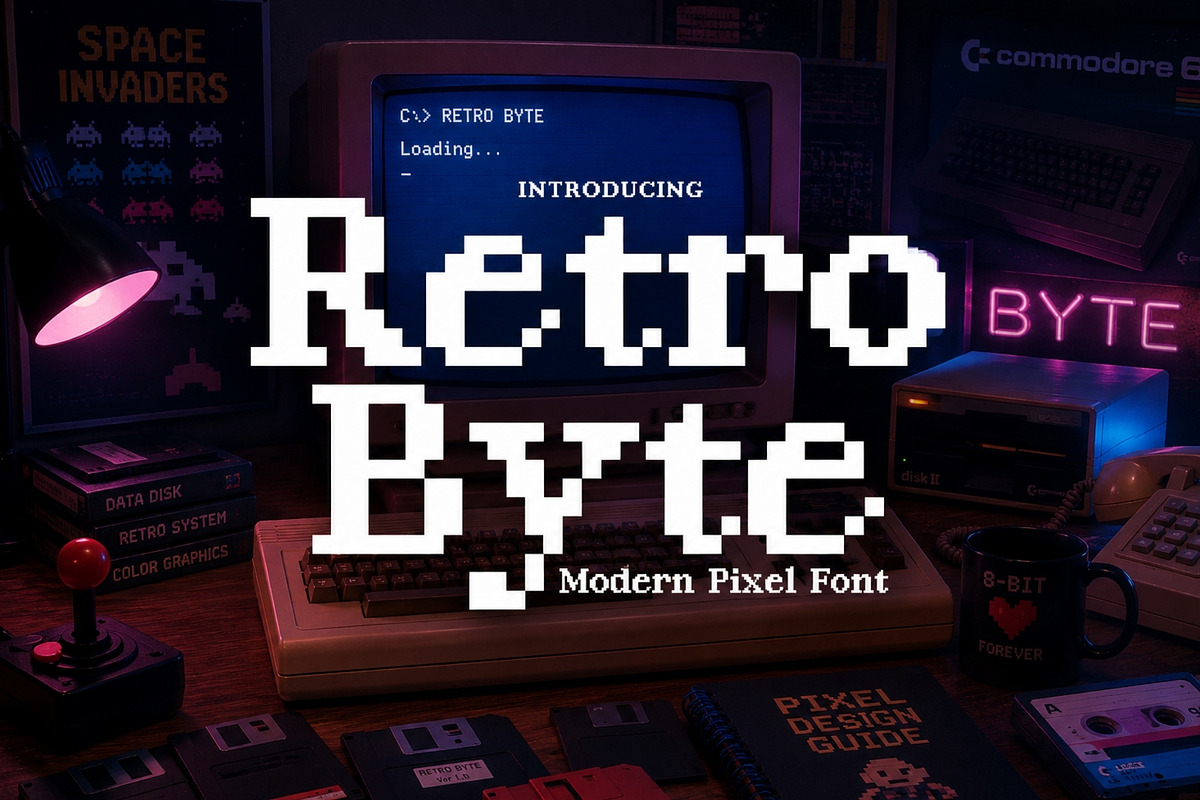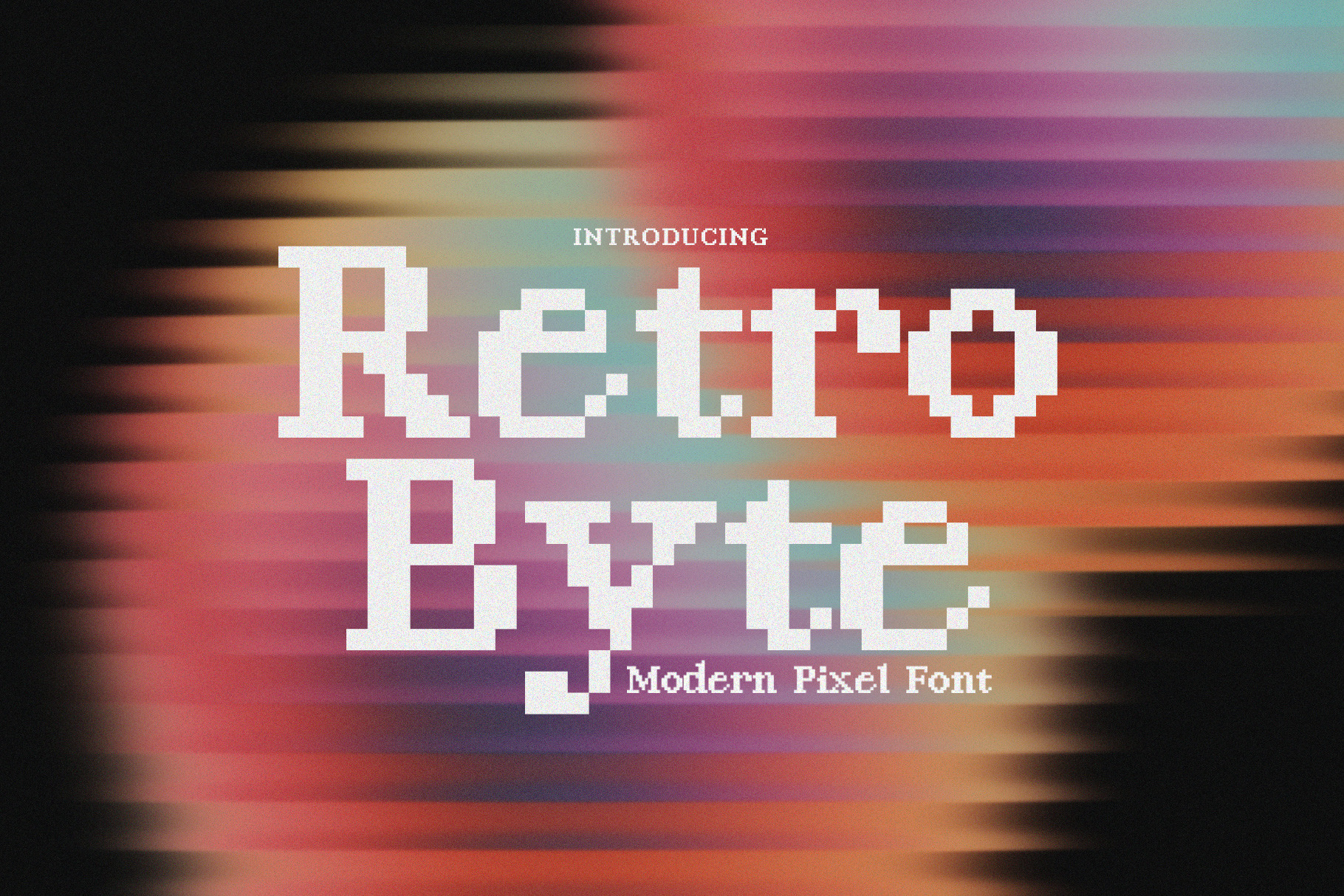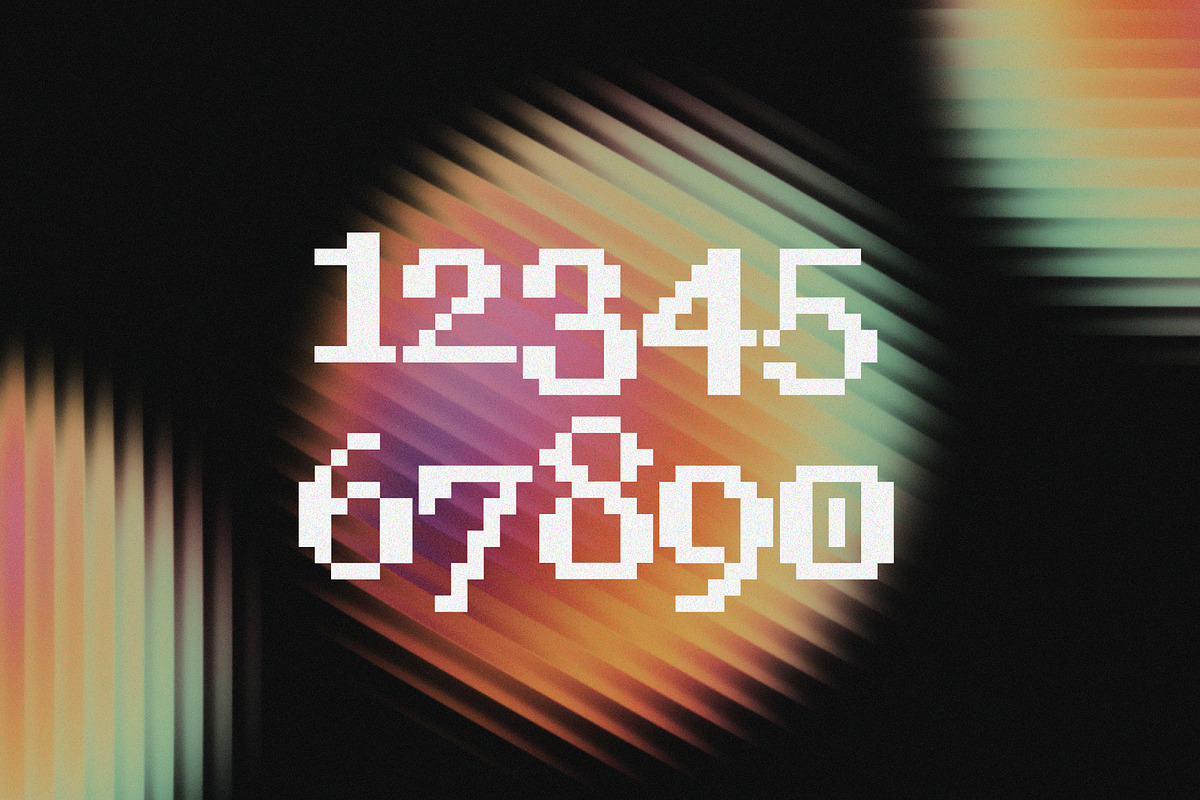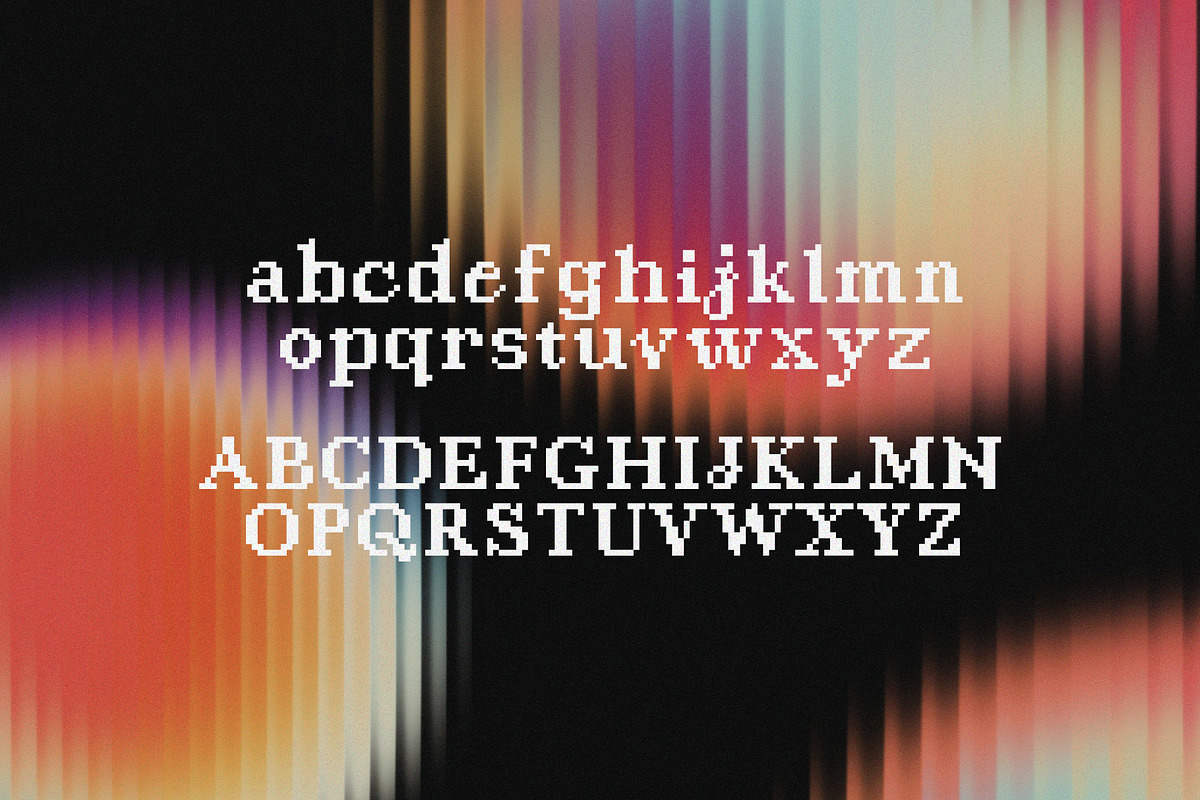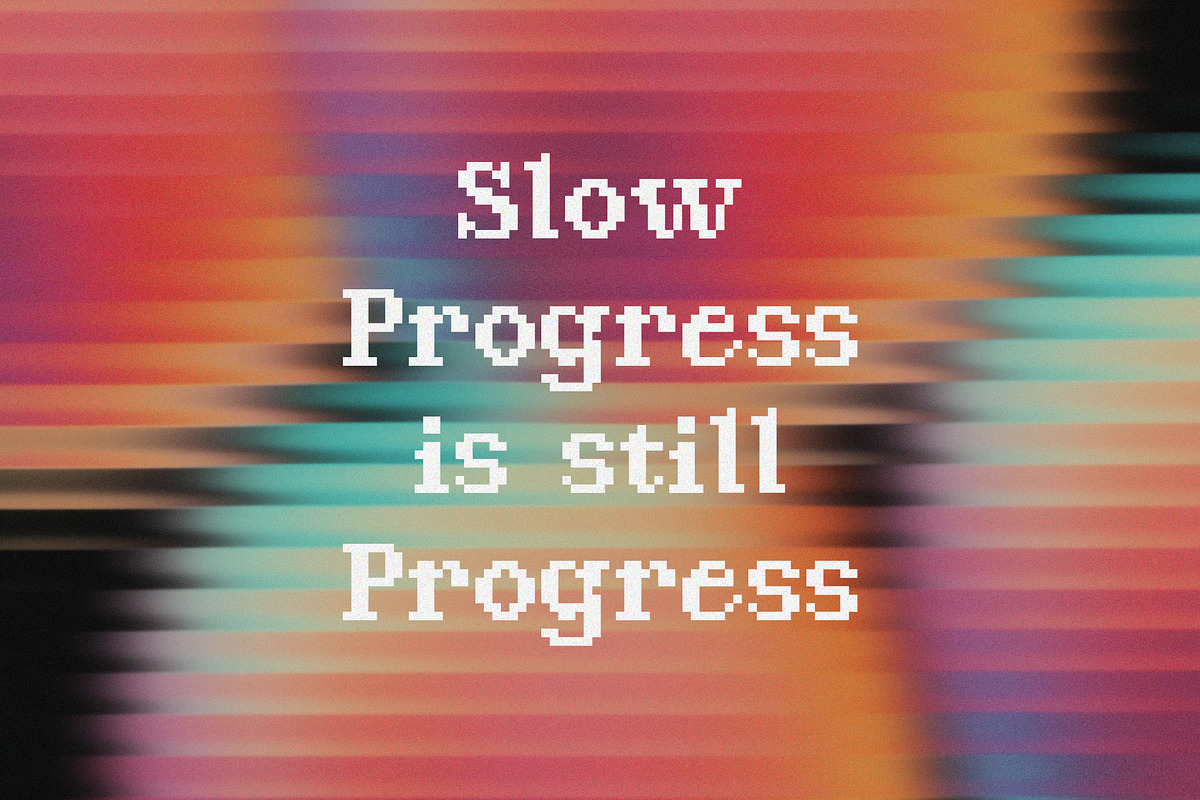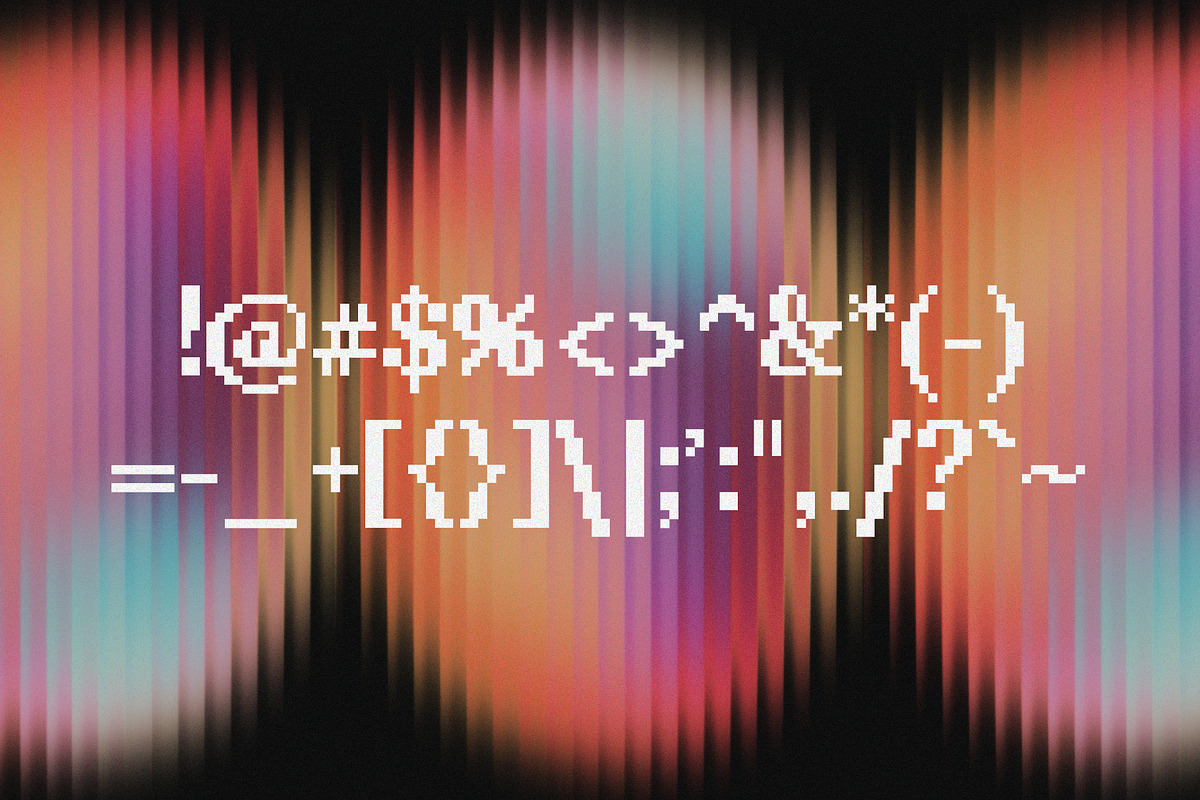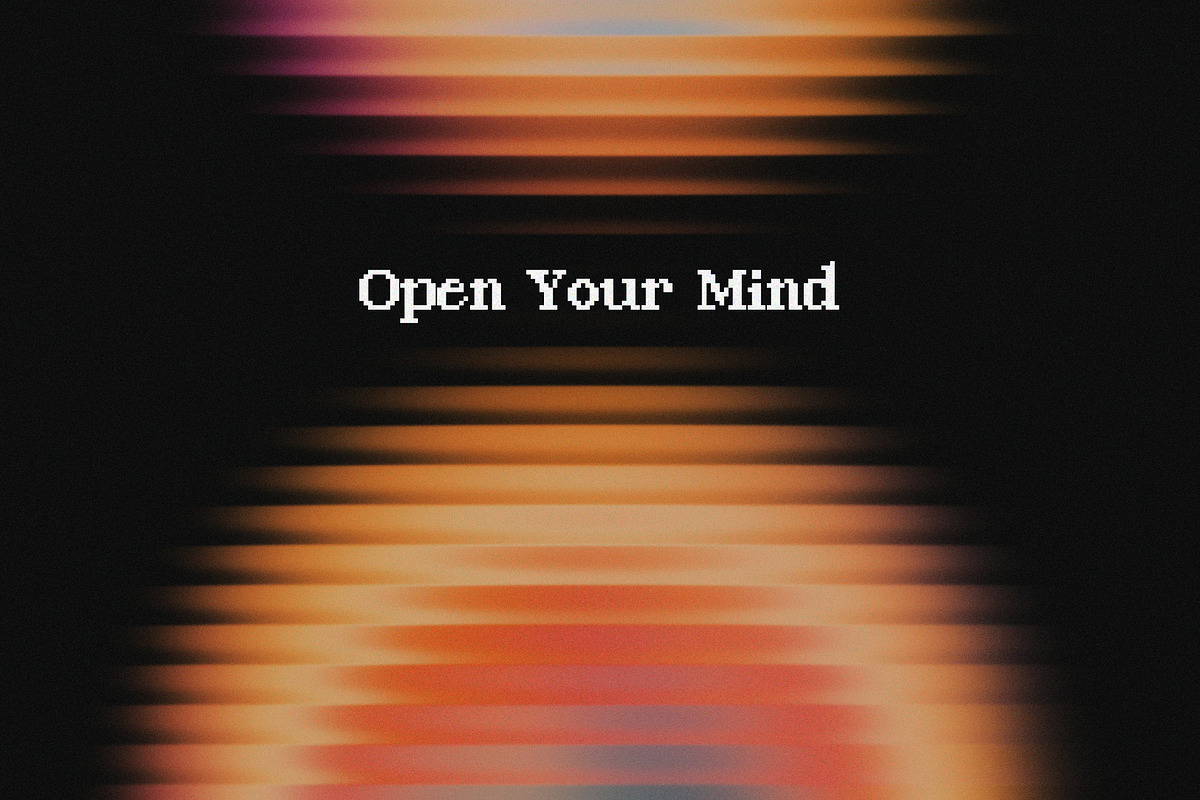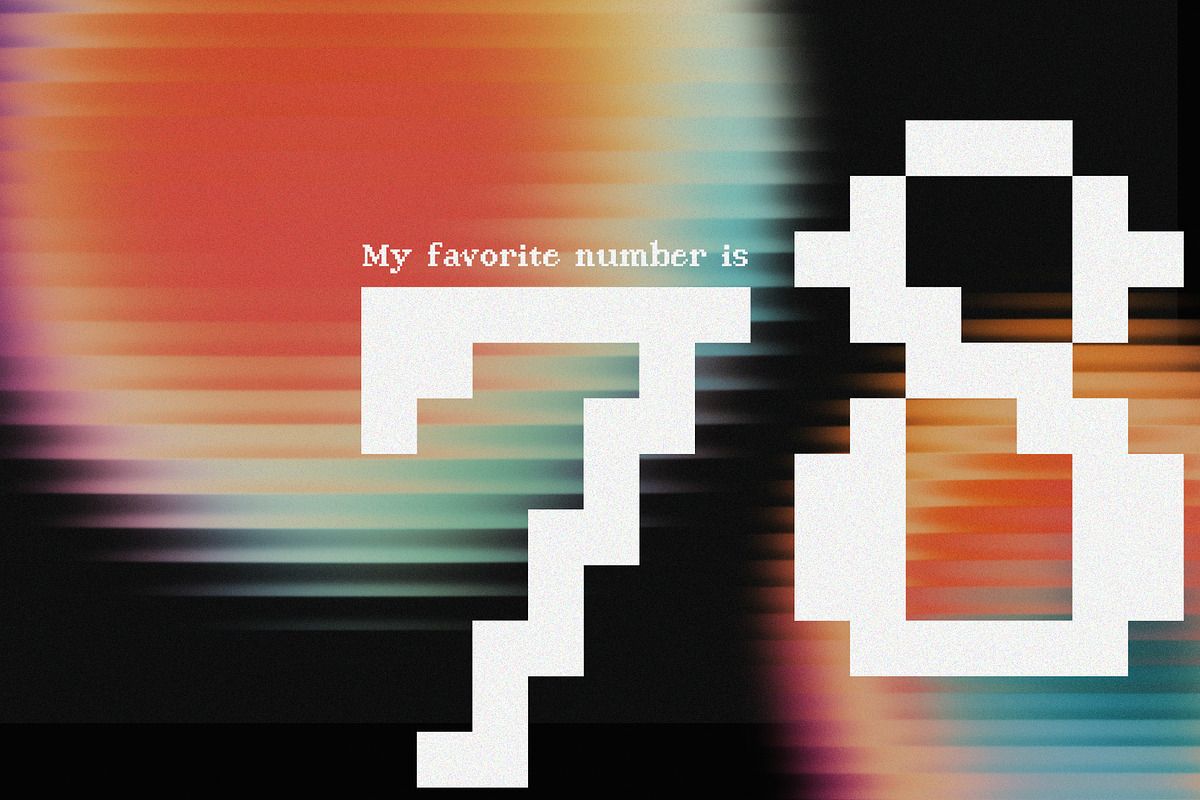
Retro Byte - Modern Pixel Font
Introducing Retro Byte: the perfect fusion of vintage charm and contemporary precision. This beautifully crafted modern pixel font is your go-to choice for adding a touch of nostalgic flair to your design projects. Inspired by the iconic aesthetics of early computer graphics, Retro Byte combines crisp, clean lines with a meticulously modern twist, making it versatile and ideal for a wide range of applications.
Whether you’re designing a retro-themed website, creating eye-catching digital artwork, or developing a cutting-edge app interface, Retro Byte offers unparalleled clarity and character. Its pixel-perfect design ensures your text remains sharp and readable at any size, while its unique style adds a distinctive edge that sets your work apart.
Unleash your creativity with Retro Byte and transform your projects into a captivating blend of past and present. Embrace the pixel-perfect revolution today!